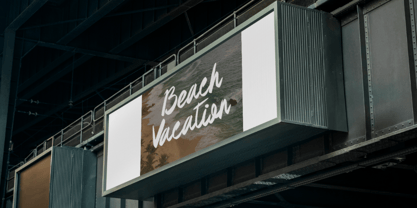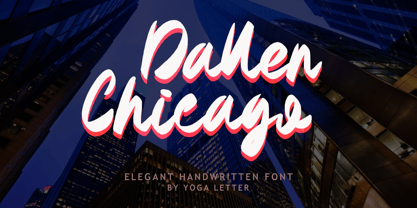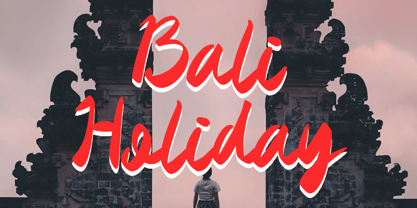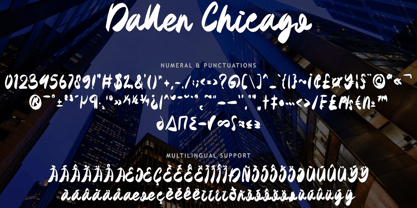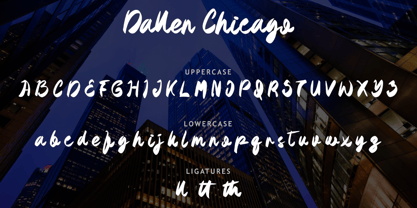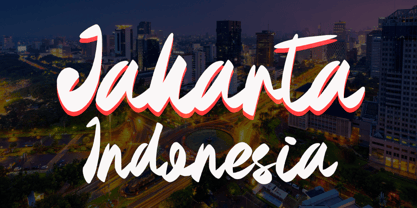
Dallen Chicago
by Yoga Letter
The Dallen Chicago Font Family was designed by Isroni Yoga Prasetya and published by Yoga Letter. Dallen Chicago contains 1 styles. More about this family
"Dallen Chicago" is a unique and elegant handwritten font. It comes with capital letters, lowercase letters, numbers, ligatures, punctuation, and multilingual support. It is perfect for business branding, posters, stickers, Christmas, winter, New Year, Valentine, invitations, etc.
Designers: Isroni Yoga Prasetya
Foundry: Yoga Letter